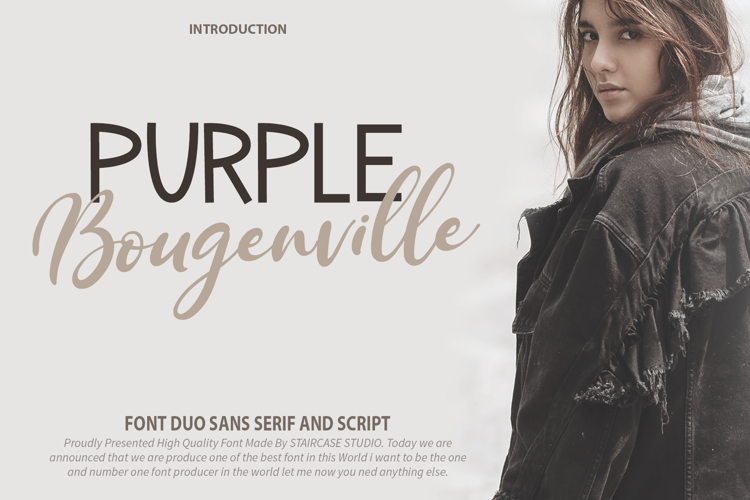
Purple Bougenville Sans Font
Purple Bougenville Font Duo, Sans Serif & Script Typefont. A collection of letters and numbers suitable your projects also great for Logotype, Branding Design, Logo Design, Digital Lettering Arts, T-Shirt/Apparel, Poster, Magazine, Signs, Advertising Design, and any design needs.